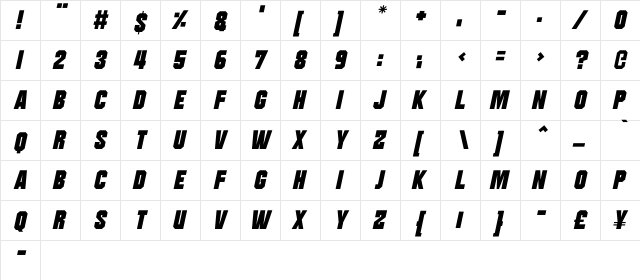
Moonbase Delta Italic
Design Context for Moonbase Delta Typeface
Moonbase Delta is a composed and adaptable typeface that performs quietly and consistently across a wide range of design contexts. Its italic angle brings a sense of urgency and motion to the letterforms.
Pro Tip: Try Moonbase Delta for annotation and caption copy alongside an upright companion — the contrast in angle creates a dynamic but ordered typographic system.